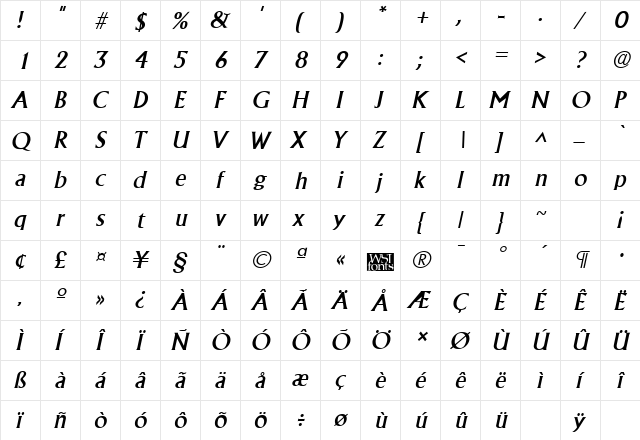
Alberta Italic
Design Context for Alberta Typeface
Alberta is a composed and adaptable typeface that performs quietly and consistently across a wide range of design contexts. Its italic angle brings a sense of urgency and motion to the letterforms.
Pro Tip: Use Alberta for emphasis, pull quotes, and subheadings where its slanted energy can add rhythm to the layout.